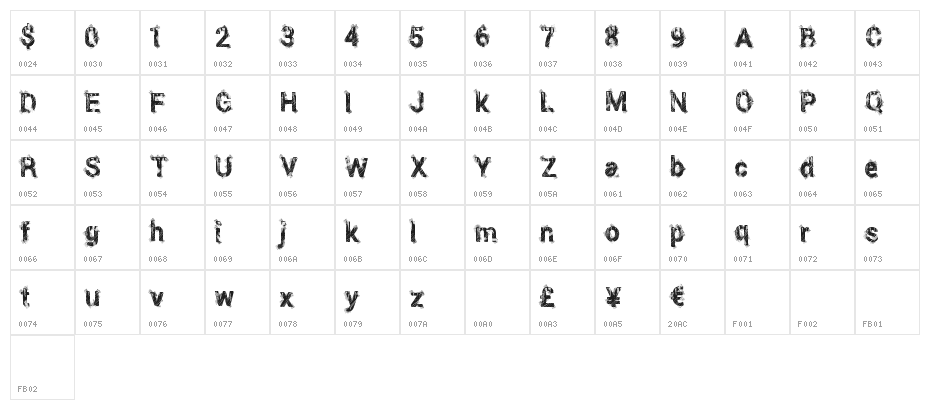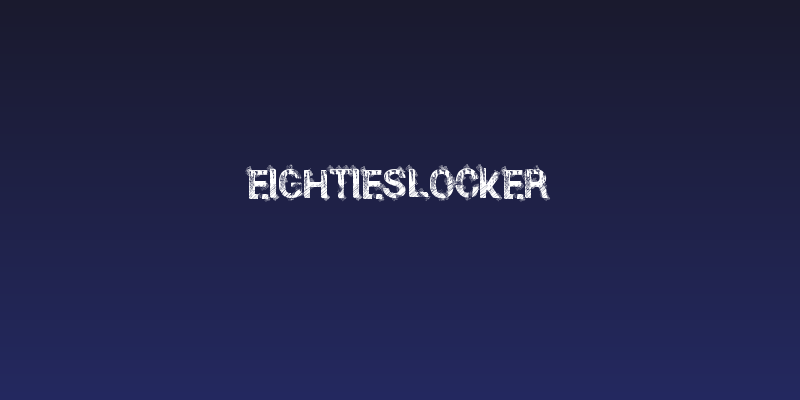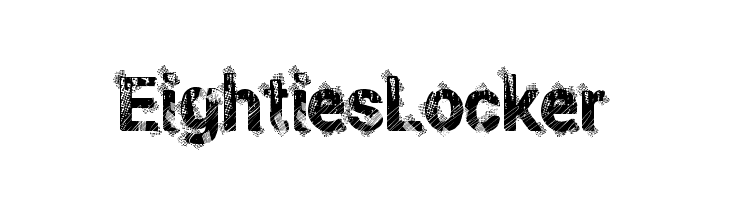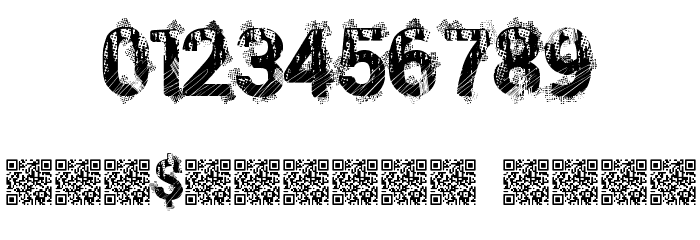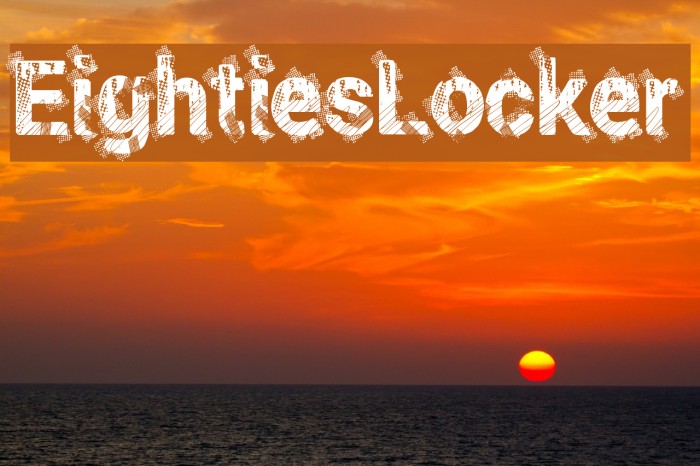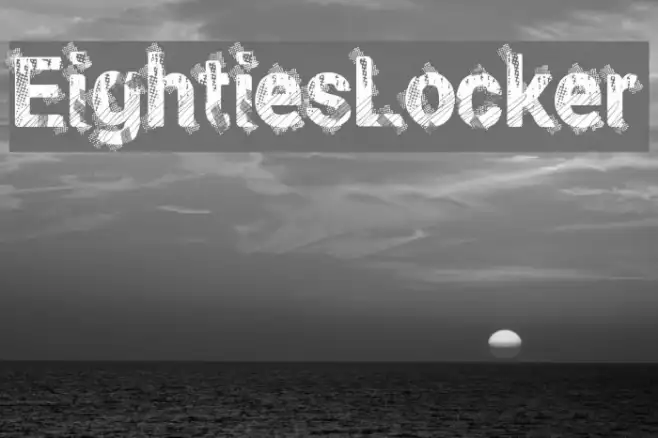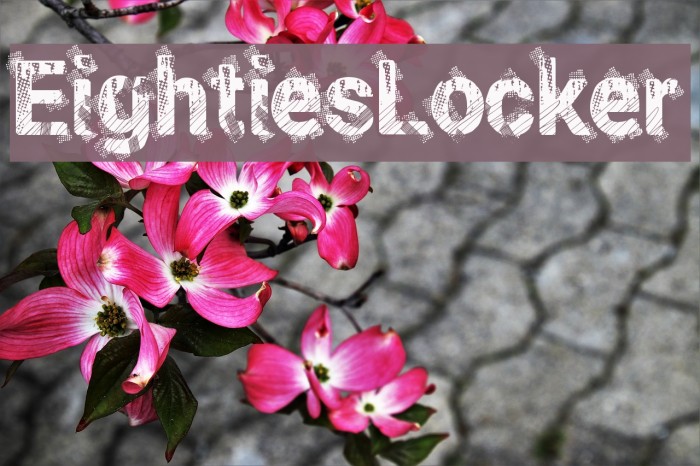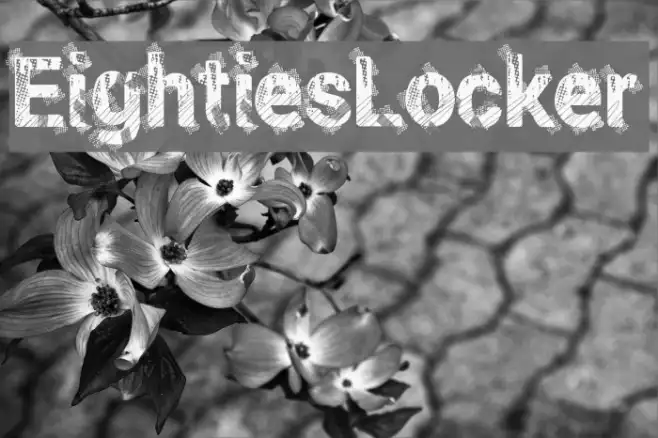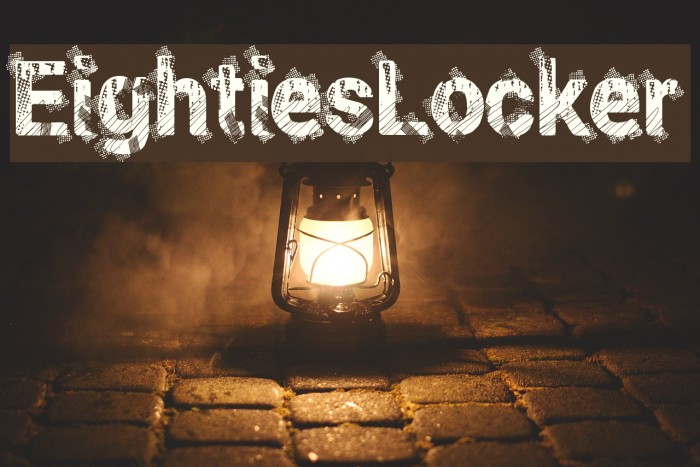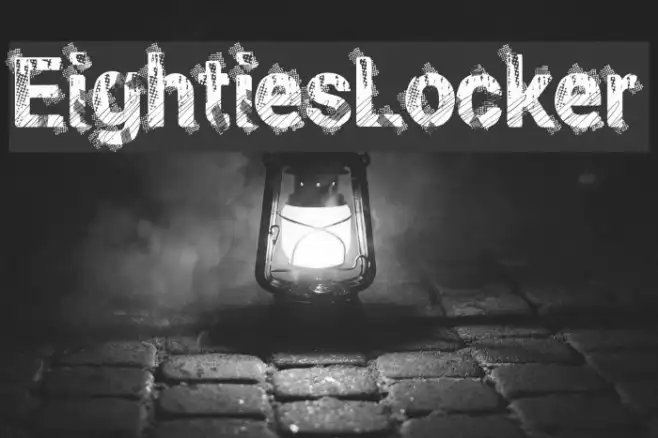
EightiesLocker Font
EightiesLocker Description
This font features a bold and dynamic style with a textured, distressed appearance reminiscent of 1980s graphic design. The letters are uppercase and lowercase, with numerals and special characters, all exhibiting a unique, grunge-like texture. The strokes are thick, giving the font a strong presence, while the distressed effect adds a sense of movement and energy. This font is ideal for projects that aim to capture a retro or vintage aesthetic, particularly those inspired by the bold, expressive styles of the 1980s. The character spacing is relatively tight, enhancing the compact and impactful look of the text.
| Proposed Projects | Ideal for retro-themed posters, album covers, and branding projects that require a bold, vintage look. |